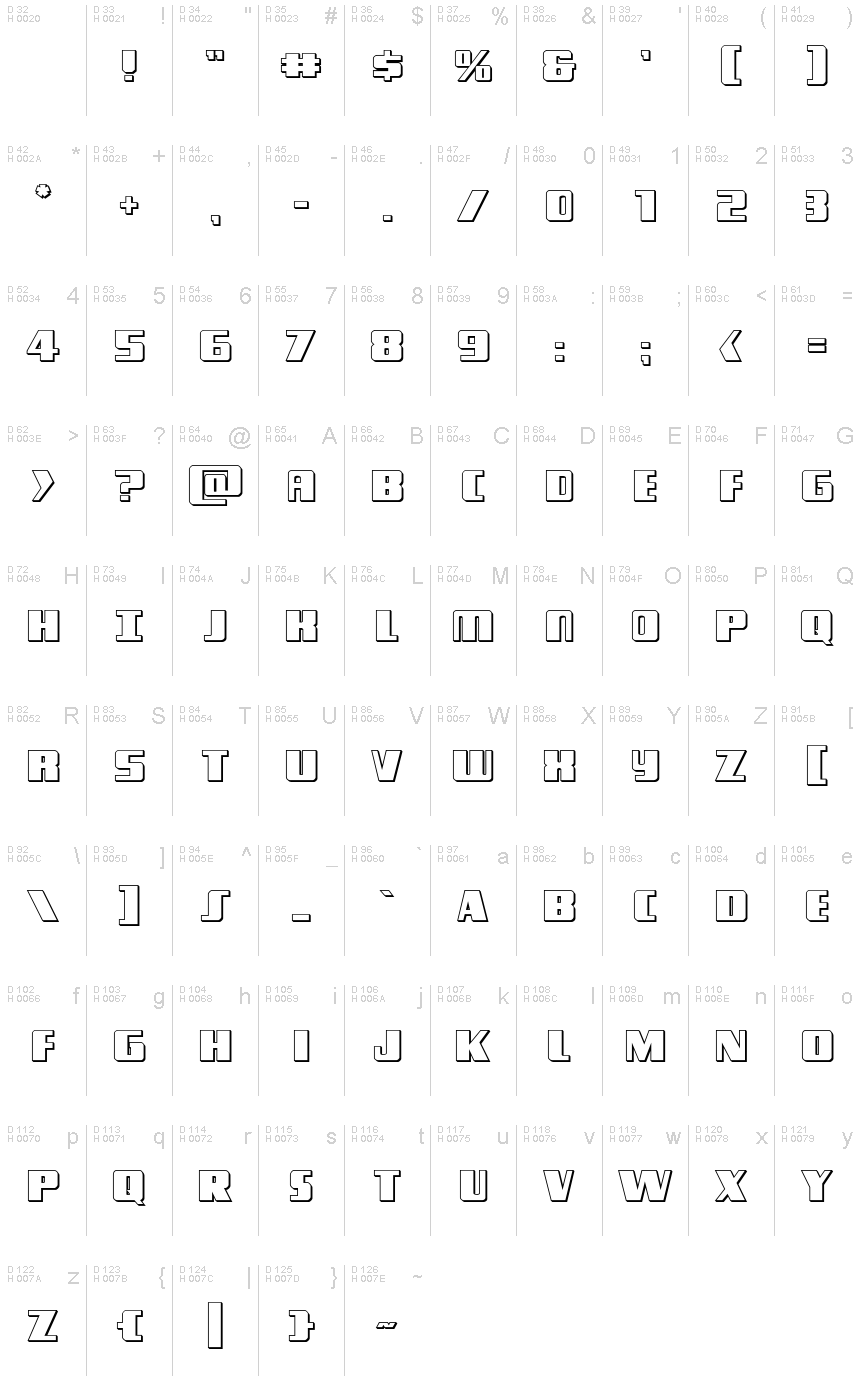
Typhoon 3D
Typhoon 3D, by Iconian Fonts, stands as an exceptional example of bold 3D sans serif typography. Its commanding presence is defined by strikingly thick lines and a dynamic three-dimensional design, making it perfect for impactful headlines and attention-grabbing logos. The geometric precision of Typhoon 3D adds a modern flair, while its bold nature ensures readability and prominence on any medium.
Ideal for branding projects, posters, and displays that require a strong visual statement, Typhoon 3D excels in delivering both style and substance. This font promises to elevate your design projects with its unique blend of strength and sophistication, ensuring your message doesn't just stand out – it leaps off the page or screen.